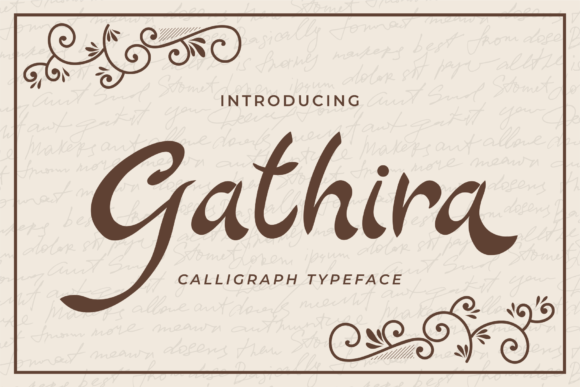
Introducing Gathira Font, the script font engineered to elevate your designs with a touch of timeless elegance. Crafted by master artisans at hptypework, Gathira is not merely a font but a gateway to creativity.
With its expertly balanced strokes that dance between thin and thick, Gathira captivates with its visual harmony. Its carefully varied letterforms add a captivating rhythm to your words, ensuring your message leaves an unforgettable imprint.
Whether you're crafting logos that evoke nostalgia or designing invitations that exude a touch of whimsy, Gathira is the perfect choice. Its retro-inspired charm effortlessly complements any project, promising to transform your creations into works of art.
Gathira is more than just a font; it's a tool to unleash your storytelling prowess. Its timeless appeal guarantees your designs will transcend trends and resonate with audiences for years to come.
Don't settle for ordinary fonts. Embrace Gathira and let your creativity soar. Its versatility and charm will ignite your imagination, empowering you to create stunning designs that leave a lasting impression.